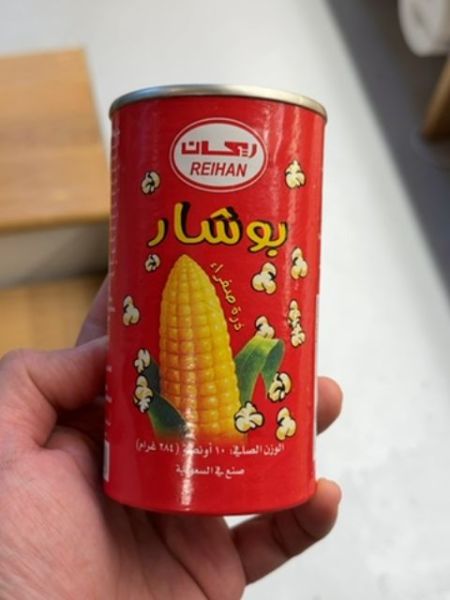
REIHAN Popcorn
A canned popcorn product intended for making and enjoying popcorn quickly and easily.
The typography uses bold, sans-serif lettering for the brand name 'REIHAN' within the logo, featuring a clear and modern style. The product name is in a stylized Arabic font, designed to stand out against the red background. The overall typography is functional with a touch of playful elegance, supporting the product's identity effectively.
The packaging is a vibrant red can featuring an image of a corn cob surrounded by small illustrations of popcorn. The brand name 'REIHAN' is prominently displayed inside an oval emblem at the top. The design is simple, yet eye-catching, aiming to convey the product's nature effectively.
- Ready-to-make popcorn in a can.
- Bright red color scheme for high visibility.
- Includes pictorial illustration of the main ingredient.